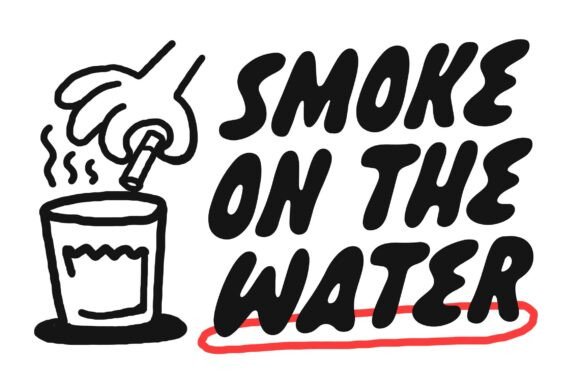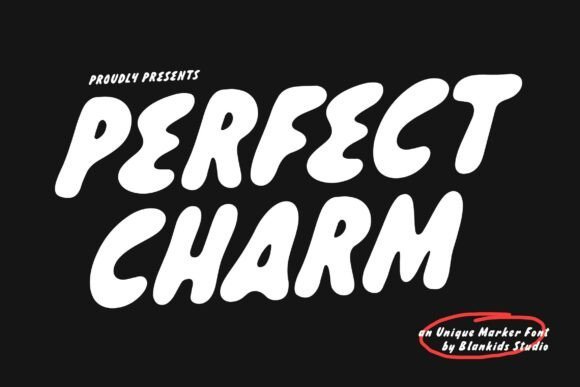
Introduction to Perfect Charm Font
Bring a touch of fun and bold personality to your design with Perfect Charm, a unique hand-drawn marker font that radiates confidence and creativity.
Perfect Charm’s smooth curves and bubbly shapes make every word feel alive β€” perfect for branding, packaging, posters, social media, or any project that needs a friendly yet striking look Whether you’re designing a playful logo, a catchy headline, or vibrant merchandise, the Perfect Charm adds that perfect touch of charm to make your message stand out.
Key Features of Perfect Charm Font
Why Choose Perfect Charm Font?
Perfect Charm Font offers exceptional quality and versatility, making it a valuable addition to your design toolkit. Whether you’re creating for personal projects or commercial use, Perfect Charm Font delivers professional results.